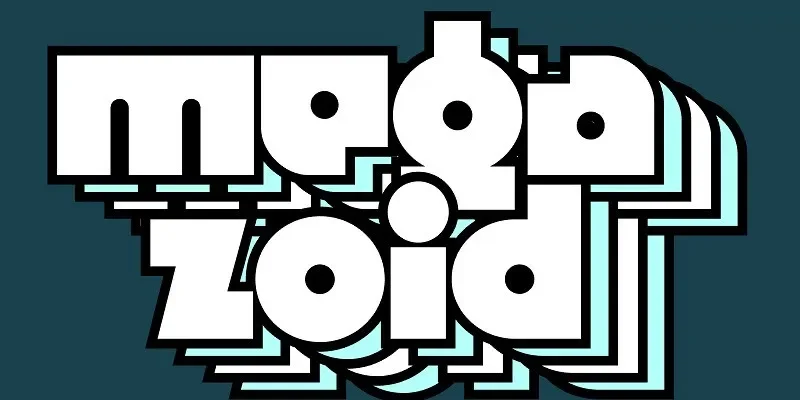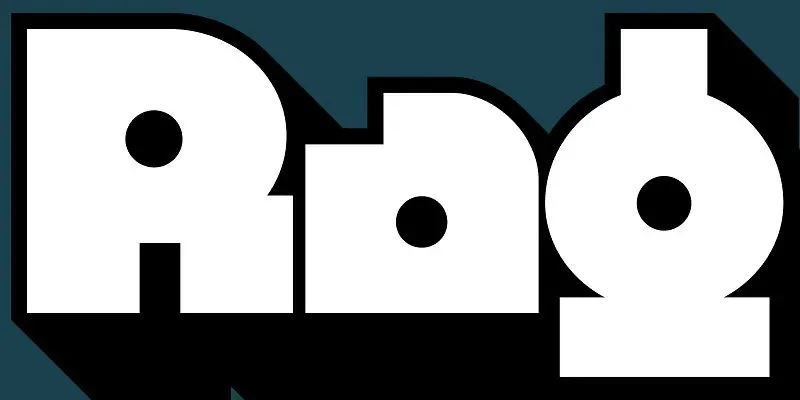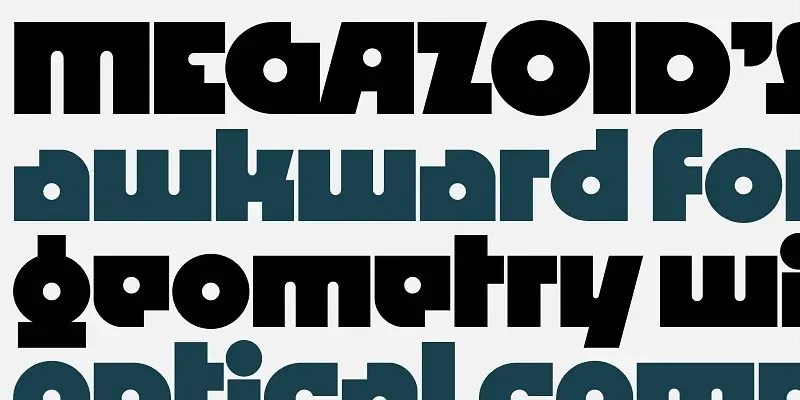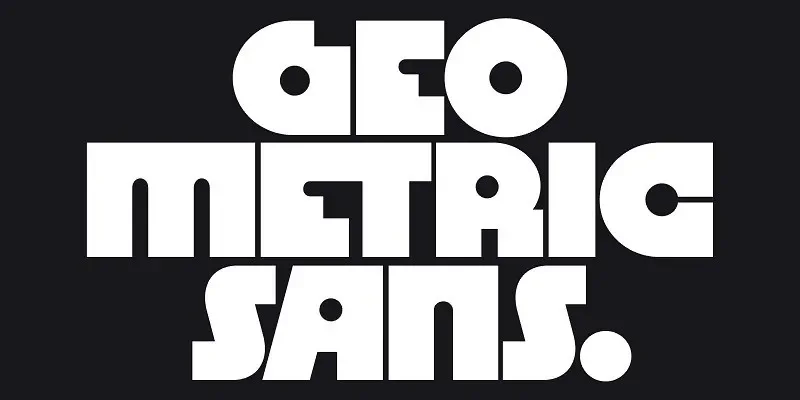
Megazoid Font solves readability issues found in heavy display fonts used for headlines and posters. Designers often need bold typography that stays clear across print and digital layouts without distorted letter shapes.
Megazoid is a bold display sans-serif font with thick strokes and geometric construction. Letterforms are wide with minimal contrast, helping maintain clarity at large sizes. Straight edges and solid proportions support visual stability in branding and promotional graphics.